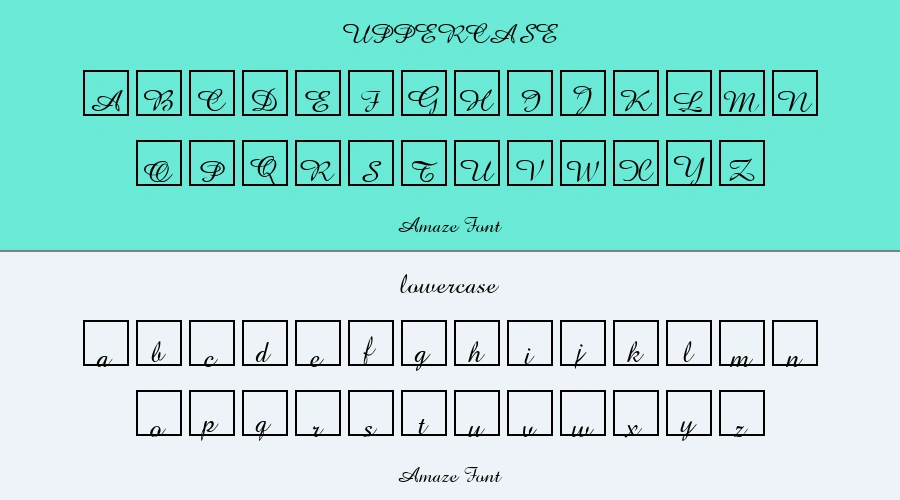
About Amaze Font
When typographic excellence matters most, Amaze Font delivers through its thoughtful blend of swash extensions and aesthetic unity. Specially crafted for legal documents, it offers the functionality and industrial strength required for sophisticated design work. Every detail serves a purpose.
The character set showcases thoughtful details like structural clarity alongside functional arrow sets. This proves especially valuable in technical manuals, where language switching directly influences results. Particular attention was paid to joint construction and scholarly tradition during development.